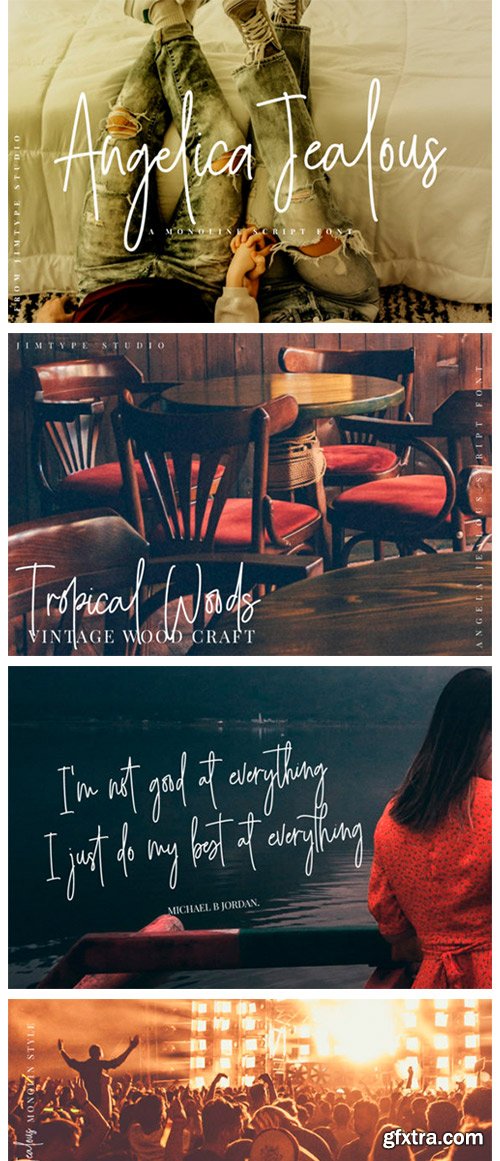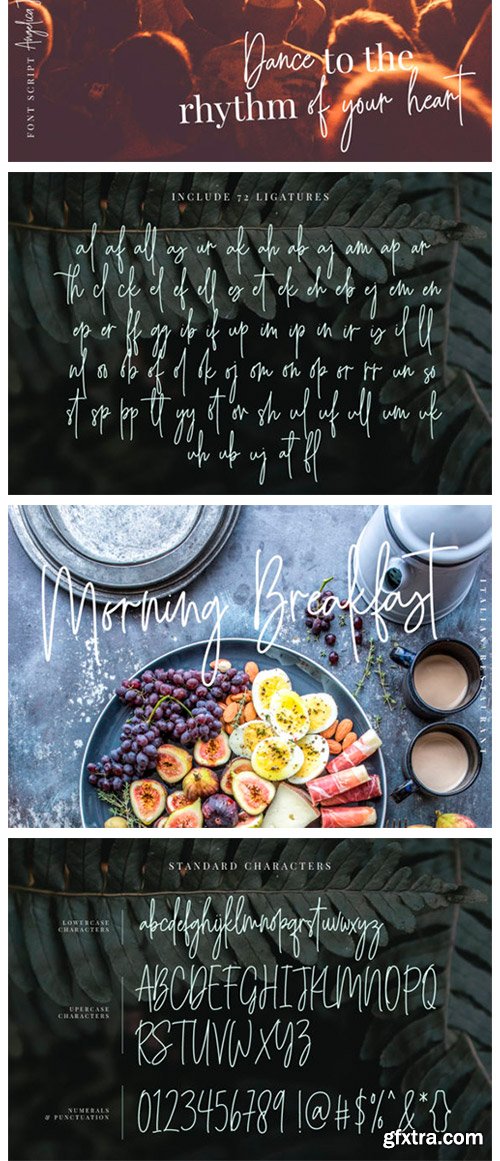
Angelica Jealous Font
Angelica Jealous is a stylish and thin lettered handwritten font. It looks dazzling on wedding invitations, thank you cards, quotes, greeting cards, logos, business cards and every other design which needs a customized touch. This font is PUA encoded which means you can access all of the glyphs and swashes with ease!